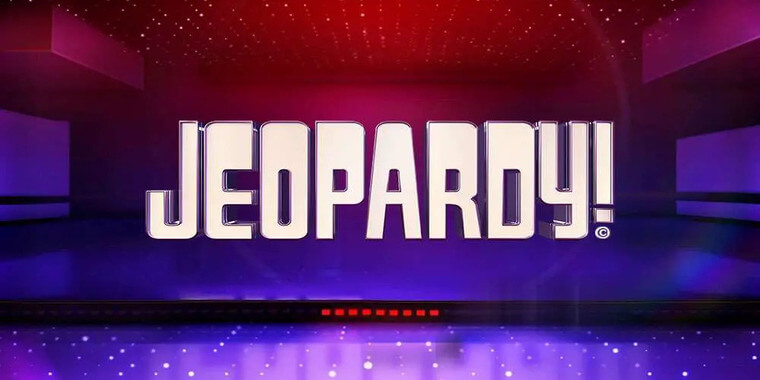
Jeopardy is a TV quiz show from the US with questions about history, pop culture, science, and geography.
The font in the Jeopardy logo looks a lot like Gyparody, a font made by Ray Larabie. The font can be used in capital letters, small letters, punctuation marks, and special accent marks.